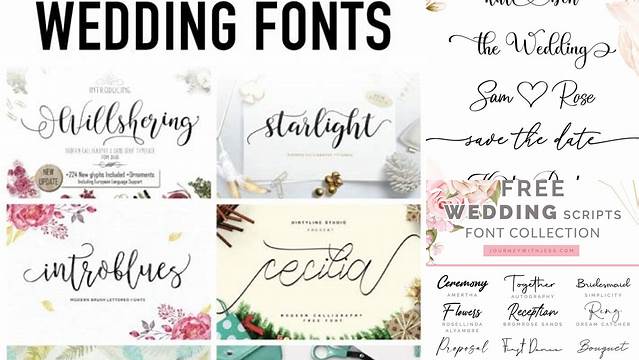
Top Cursive Fonts For Stunning Wedding Signs
Hey everyone! Planning a wedding is super exciting, right? And let's be real, every detail matters! One of the most important elements for your big day is the signage. It sets the tone, guides your guests, and adds that personal touch. Today, we're diving into the world of best cursive fonts for wedding signs. Choosing the right font can make a huge difference in the overall aesthetic, so let's explore some beautiful options. This guide will help you find the perfect cursive fonts to create stunning wedding signs that perfectly match your style.
1. The Timeless Elegance of Script Fonts for Wedding Signage
When you think of best cursive fonts for wedding signs, classic script fonts often come to mind, and for good reason! They exude a timeless elegance that's perfect for a wedding. These fonts often feature flowing strokes, graceful curves, and a sense of sophistication. They're ideal for conveying a romantic and formal atmosphere. Think of them as the perfect choice for welcome signs, seating charts, and even menu cards. The beauty of a script font lies in its ability to add a touch of luxury and personalization. It's like giving your wedding a personalized signature that's both beautiful and memorable. There are countless variations within the script font category, so you can find one that perfectly aligns with your wedding theme, whether it's a rustic farmhouse affair or a glamorous ballroom celebration. Many script fonts come with multiple stylistic sets, allowing you to customize the look further. You could opt for a font with delicate flourishes for a delicate and romantic vibe, or a more bold and readable script for clarity. Using script fonts creates an inviting and stylish welcome. It makes your guests feel special as they arrive. If you're aiming for a traditional and refined look, script fonts are the way to go. It will also add a touch of your personality and a memorable impression on your guests.
2. Modern Cursive Font Options for Wedding Sign Designs
If you are searching for the best cursive fonts for wedding signs and want a more contemporary feel for your wedding signage, explore modern cursive fonts. These fonts blend elegance with a touch of contemporary flair. They often feature cleaner lines, bolder strokes, and unique letterforms that set them apart from traditional script fonts. Modern cursive fonts offer a fresh and stylish aesthetic for wedding signs. This option is perfect if you're planning a wedding with a modern theme, or if you just want a more up-to-date look. These fonts can be very versatile, working well on welcome signs, bar menus, and even table numbers. Modern cursive fonts create a stylish and eye-catching effect. Consider experimenting with these fonts for your wedding signage. They will showcase a more personal touch to your wedding. Many modern cursive fonts also include variations such as all caps. This helps them stand out. It is a smart choice to choose this type of font because you can use it everywhere in your wedding. Ultimately, the most important thing is that the font you choose reflects your personality and your wedding style. Modern cursive fonts are a great choice to impress your guests. They will make a lasting impression.
3. Rustic Cursive Fonts for Charming Wedding Signs
For those dreaming of a rustic wedding, the best cursive fonts for wedding signs play a major role in setting the right tone. Rustic cursive fonts perfectly complement the charm of a barn wedding, a vineyard celebration, or any outdoor event with a laid-back vibe. These fonts often feature a slightly rough or textured appearance, with uneven strokes and a hand-drawn feel that evokes a sense of warmth and authenticity. Imagine a beautifully weathered wooden sign adorned with a rustic cursive font, welcoming guests to your special day. Or, envision table numbers written in a similar font, adding a touch of country elegance to each setting. The beauty of rustic cursive fonts lies in their ability to capture the essence of a relaxed, yet refined style. They're perfect for couples who want their wedding to feel warm, inviting, and down-to-earth. Plus, rustic cursive fonts add a natural element to your wedding decor. They are often paired with other elements such as wood, burlap, and natural greenery. It creates a cohesive and harmonious look. The combination creates an inviting atmosphere and allows your wedding to shine. If you want a more authentic feeling, then using rustic cursive fonts is the right choice.
4. Calligraphy-Inspired Cursive Fonts for Elegant Wedding Signage
Looking for something truly exquisite when it comes to the best cursive fonts for wedding signs? Calligraphy-inspired fonts are the answer. They are perfect for creating an elegant and sophisticated atmosphere. These fonts are designed to mimic the flowing lines and graceful strokes of hand-lettered calligraphy. They offer a touch of artistry and refinement to your wedding signage. Calligraphy-inspired fonts are ideal for couples who desire a touch of luxury and personalization in their wedding details. Imagine welcome signs with elegant calligraphy, table numbers with ornate flourishes, or custom signs featuring your vows written in beautiful calligraphy. This approach creates a visually stunning effect. Choosing a calligraphy-inspired font elevates the entire aesthetic of your wedding, making it feel like a truly special event. The intricate details and artistic flair of these fonts will surely impress your guests and add a sense of luxury to your wedding. This choice will create beautiful and memorable wedding details, creating a sophisticated touch.
5. Playful Cursive Fonts for Fun Wedding Signs
Let's not forget the fun side of weddings! If you're searching for the best cursive fonts for wedding signs and want a more playful and lighthearted feel, consider using playful cursive fonts. These fonts often feature whimsical letterforms, bouncy baselines, and a touch of personality that's perfect for couples with a fun-loving spirit. Playful cursive fonts work really well for signs like photo booth backdrops, cocktail menus, or even directions. The beauty of these fonts is their ability to add a sense of joy and lightheartedness to your wedding decor. Choosing a playful cursive font adds a touch of personality and creates a fun and welcoming atmosphere for your guests. It adds a little bit of extra fun to your wedding signage. You can pair it with bright colors, quirky illustrations, and playful phrases to create a visually engaging experience. If you want to make your wedding a memorable and joyful event, then choose playful cursive fonts to make your wedding signs unique and charming.
6. Tips for Choosing the Best Cursive Fonts for Your Wedding Signs
Alright, so you know you need to pick the best cursive fonts for wedding signs, but how do you make the right choice? First, consider your wedding theme and style. Do you want something elegant, rustic, modern, or playful? Match your font to your theme for a cohesive look. Next, think about readability. While cursive fonts are beautiful, they should also be easy to read. Choose a font with clear letterforms, especially if you're using it for important information. Test out the font with your wedding details. See how it looks with your names, the date, and any other text you'll be using. Make sure it complements your overall design. Also, consider the contrast between the font and the background. Make sure the font is visible and easy to read. A good contrast makes all the difference. Choose a font that aligns with the message you want to convey. Some fonts are more formal, while others are more casual. Lastly, don't be afraid to experiment with different fonts. You can try several fonts to find the perfect one. With a little thought and planning, you can choose the perfect font. Remember that the right font can really bring your vision to life.
7. Testing Font Readability for Wedding Signage Clarity
One of the most important things to consider when selecting the best cursive fonts for wedding signs is readability. After all, the whole point of signage is to communicate information clearly. Readability is especially important when you're using cursive fonts because of their flowing and often intricate letterforms. It's very easy for them to be difficult to read, especially from a distance or in low light. Before committing to a font, always test it out with the text you'll be using on your signs. This includes your names, the date, and any other important details. Try printing the text in different sizes to see how it looks. Check it from various distances and in different lighting conditions. Avoid fonts with overly ornate or complex letterforms, as they can easily become illegible. Look for fonts with clear and distinct letter shapes. Make sure that the font is easy to read. Prioritize clarity over fancy flourishes, especially for signs that need to be quickly understood. Ensuring readability will allow your guests to easily navigate your wedding. Your guests will have a better experience, making sure that everyone has a great time.
8. Matching Fonts to Your Wedding Theme for Cohesive Signs
Another key factor in choosing the best cursive fonts for wedding signs is matching them to your overall wedding theme. Your font choice should complement the style of your wedding, whether it's rustic, modern, elegant, or playful. A rustic theme might call for a font that has a hand-drawn feel. A modern wedding might require a clean and simple font. An elegant wedding might feature a more sophisticated script. The font you choose will impact the overall feel of your wedding. When selecting your font, consider the color palette, decor, and atmosphere of your wedding. Think about the mood you want to create and choose a font that will enhance that mood. For example, if you're having a beach wedding, you might opt for a font that has a breezy, relaxed feel. This will create a beautiful and harmonious environment. Choosing the right font will strengthen your wedding's theme. This is a fantastic way to create a memorable wedding experience. Your guests will be impressed and it will create a sense of cohesion.
9. Color Considerations for Cursive Fonts in Wedding Signage
Choosing the best cursive fonts for wedding signs also involves paying close attention to the color. The color you choose for your font should contrast well with the background. This ensures that the text is easy to read and visually appealing. Consider your overall color palette. The font color should complement your wedding colors. If you're using a light-colored background, then use a dark font. If you're using a dark background, then use a light-colored font. This is a fundamental design principle. Some fonts look better in certain colors than others. Take this into account when making your selection. Don't be afraid to experiment with different colors. You can use a variety of options to find the perfect combination for your wedding signage. You can use gold or silver for an elegant touch. If you want to have a more modern or fun style, you can use bold or bright colors. Consider the materials you will use for your signs. The color of the font will look different. Choose a color that suits the material. With a thoughtful approach to color, you'll create wedding signs that are both beautiful and functional.
10. Size and Scale of Cursive Fonts for Wedding Signs
When you're deciding on the best cursive fonts for wedding signs, it's important to think about size and scale. The size of your font should depend on the size and purpose of the sign. Signs that are intended to be read from a distance, such as welcome signs or direction signs, require larger fonts. This ensures that guests can easily read them from afar. Consider the size of the sign itself when choosing the font size. Make sure that the font is large enough to fill the space, but not so large that it overwhelms the design. You can try several font sizes to see how it will look. Ensure that the text is legible. Pay attention to the spacing between letters and lines of text. It's important to ensure that the text is easy to read. Experiment with different sizes and scales to create visually appealing and functional wedding signs. You will create signs that enhance the aesthetic of your event. The right font size, along with proper spacing, ensures that the sign serves its purpose effectively. It also enhances the visual appeal.
11. Combining Cursive Fonts with Other Font Styles for Wedding Signs
To find the best cursive fonts for wedding signs, consider combining them with other font styles. This can add visual interest and create a more balanced look for your signage. Combining a cursive font with a clean and simple sans-serif font can create a beautiful contrast. The cursive font can be used for names or important details. The sans-serif font can be used for body text, like directions or menu items. You can also use a serif font to add a touch of elegance to your wedding signs. Remember to keep the fonts consistent with your wedding theme. Make sure the fonts complement each other. Don't use too many different fonts, as this can make your signs look cluttered and confusing. Experiment with different combinations. You can find the perfect balance between style and readability. The combination of fonts will create visually appealing and effective wedding signs. This approach creates an engaging design. You can create a personalized design.
12. Digital vs. Hand-Lettered Cursive Fonts for Wedding Signs
Deciding between digital and hand-lettered cursive fonts is part of finding the best cursive fonts for wedding signs. Digital fonts offer convenience and consistency. You can find countless digital cursive fonts online. You can easily customize them to fit your needs. Hand-lettered fonts, on the other hand, have a unique and personal touch. These fonts are created by hand, often by skilled calligraphers or designers. They add a special touch to your wedding. If you're looking for a specific style, hand-lettered fonts may provide that unique design. If you are considering hand-lettered fonts, then you have to make sure you can afford the artist. Consider the time and effort. Digital fonts are often more cost-effective. They offer flexibility and allow you to create many signs. Hand-lettered fonts will add an elegant feel. The choice between the two depends on your budget, style, and time constraints. Carefully evaluate the pros and cons of each option. Consider what best suits your wedding needs. Ultimately, the right choice will perfectly complement your wedding day.
13. Resources for Finding Cursive Fonts for Wedding Signs
Looking for the best cursive fonts for wedding signs? Finding the perfect font can be a fun process. There are many resources available. Start by exploring free font websites like Google Fonts and DaFont. These sites offer a wide variety of cursive fonts that you can download and use for free. Creative Market and Envato Elements are great options if you're willing to invest a bit. These sites offer premium fonts with unique designs. You can also search for font foundries that specialize in creating fonts. Some font foundries offer stunning cursive fonts. Many graphic design software programs, such as Adobe Creative Cloud, also have font libraries. Explore design blogs and websites. You can get inspiration and find links to beautiful fonts. Browse through wedding websites and magazines. You can find font inspiration and ideas for how to use different cursive fonts in your wedding signage. Don't be afraid to try different websites. This will help you find the perfect font for your wedding signs. Make the most of these resources and find the font that best suits your wedding style.
14. Popular Cursive Font Choices for Wedding Signs
When you are looking for the best cursive fonts for wedding signs, some fonts stand out as particularly popular choices. Many popular fonts will perfectly fit your wedding. These are often popular because of their elegance and readability.